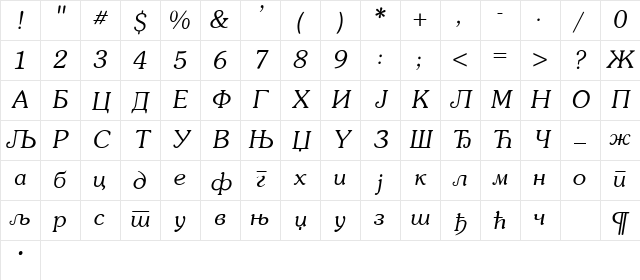
C_Southern Italic
C_Southern Family
Design Context for C_Southern
C_Southern is a composed and adaptable typeface that performs quietly and consistently across a wide range of design contexts. The slanted form adds forward momentum and visual energy.
Pro Tip: Use C_Southern for emphasis, pull quotes, and subheadings where its slanted energy can add rhythm to the layout.